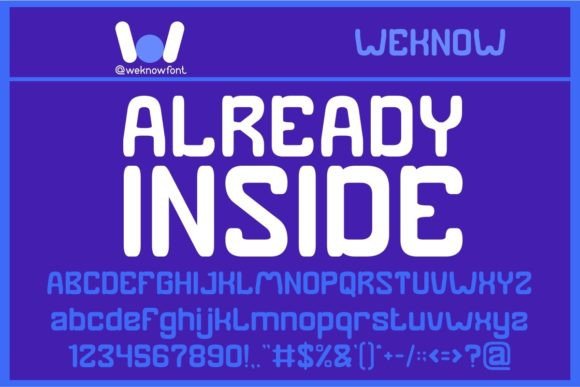
Ah, the eternal struggle of finding the perfect font for a project! I still remember the time I was working on a logo design for a trendy clothing brand. The client wanted something that screamed “cool” and “edgy,” but I was stuck with a bland, generic font that just wouldn’t cut it. That’s when I stumbled upon Already Inside, a fancy and cool display font that changed the game. In this article, I’ll share my experience with Already Inside, its features, and how to make the most of it in your designs.
Already Inside: The Font that Stole My Heart
Already Inside is a stunning display font designed for creative projects that demand a bold statement. Its unique blend of elegance and edginess makes it perfect for logos, logotypes, headlines, corporate identities, brand identities, apparel industry, posters, music, movies, games, magazines, books, comics, cartoons, YouTube, Instagram, websites, or any of your creative design projects.
Honest Review: The Good, the Bad, and the Quirky
• ✨ Unique and stylish design that stands out from the crowd
• ✅ Excellent for headlines, titles, and short text
• ⚡️ Highly legible, even at smaller sizes
• 🎨 Versatile and adaptable to various design styles
• 🤔 May not be suitable for body text or long paragraphs due to its display nature
• ⚠️ Limited availability of certain characters and glyphs
The Designer Behind Already Inside: A Backstory
Imagine a designer who’s passionate about creating unique and stylish fonts that inspire creativity. With a background in graphic design and typography, they set out to create a font that would stand out from the crowd. After months of research and experimentation, Already Inside was born – a font that’s both elegant and edgy, perfect for designers who want to make a statement.
Frequently Asked Questions:
Q: What is Already Inside font?
A: Already Inside is a fancy and cool display font designed for creative projects that demand a bold statement.
Q: Is Already Inside suitable for body text?
A: No, Already Inside is a display font and may not be suitable for body text or long paragraphs due to its display nature.